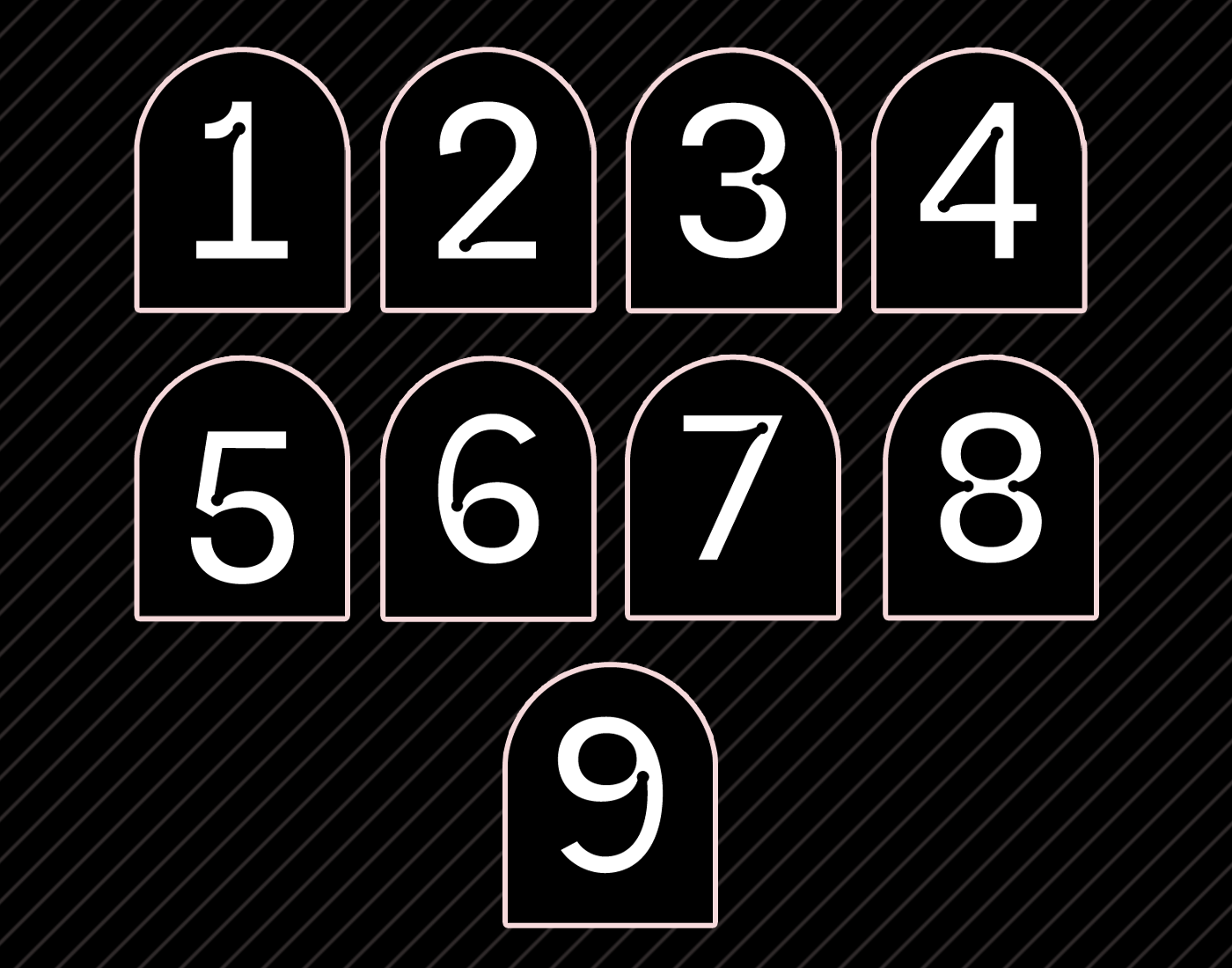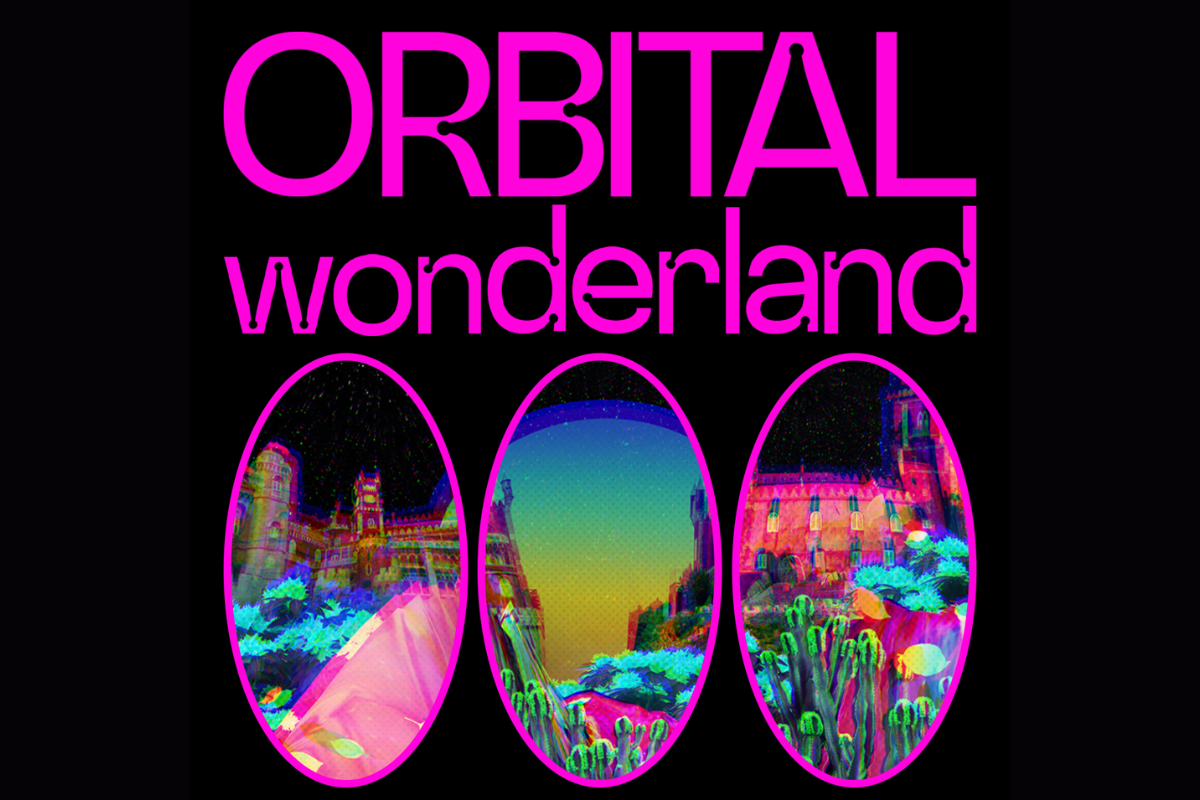
Orbital Typeface
Download Orbital Typeface from LOS IMPRIMIR. This product includes 4 styles: Regular, Italic, Round & Round Italic. Orbital is perfect for creating titles and logotypes with its unique characters.
in a glance it is a quirte normal typeface
Quirte normal typeface.... look a little further and your eyes are forced to look more in detail....than the typeface comes alive